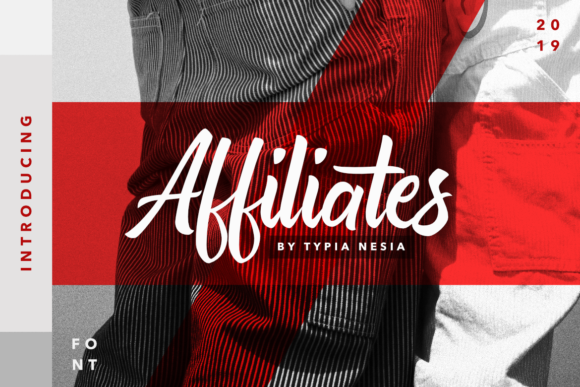
The Affiliates Font: A Modern Handwritten Gem
Have you ever been in the middle of a design project, and suddenly, you’re stuck on finding the perfect font? I recall a recent experience where I was working on a branding project for a crafty client, and I just couldn’t find a font that captured the right blend of modern and personal charm. That’s when I stumbled upon the Affiliates font, and it completely transformed my design. In this article, I’ll share my journey with this beautiful font, its features, and how you can make the most of it in your designs.
A Personal Review: What I Love About Affiliates Font
The Affiliates font has quickly become one of my favorites, and here’s why:
- ✨ Unique and Personal Charm: The Affiliates font boasts a modern and delicate handwritten style that adds a personal touch to any design.
- ✅ Bold Feel: Despite its delicate appearance, the font has a bold feel that makes it perfect for headlines and titles.
- 💡 Versatility: The font is incredibly versatile and can be used for a wide range of design projects, from branding and advertising to crafting and DIY tutorials.
While I absolutely love the Affiliates font, there are a few minor quirks to be aware of:
- 🤔 Limited Character Set: Some users have noted that the font could benefit from a more extensive character set, particularly for non-English languages.
- ⚠️ Occasional Kerning Issues: As with any font, you may encounter occasional kerning issues, especially when using the font at smaller sizes.
The Designer Inspiration Behind Affiliates Font
While the true story behind the Affiliates font remains a mystery, it’s easy to imagine that the designer was inspired by the beauty of handwritten typography. Perhaps they wanted to create a font that would capture the essence of modern craftsmanship and personal charm. Whatever the inspiration, the result is a stunning font that has captured the hearts of designers and crafters alike.
| Font Name | Affiliates Font |
| Author | Typia Nesia |
- Q: What type of designs is the Affiliates font best suited for?
- A: The Affiliates font is perfect for designs that require a modern and personal touch, such as branding, advertising, and crafting.
- Q: Is the Affiliates font available in multiple languages?
- A: The Affiliates font may have limited character support for non-English languages, so it’s best to check the font’s specifications before use.